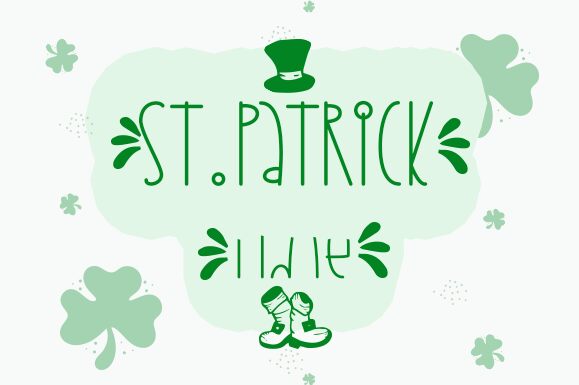
Patrick Time
Patrick Time font is a free handwritten font which carries light condensed characters with style and flair. This Danar Nugroho creation exhibits whimsical design elements blended into modernist influenced artistic forms. Its unique design remains minimalist and suitable for visual viewing on mobile, desktop, or print.